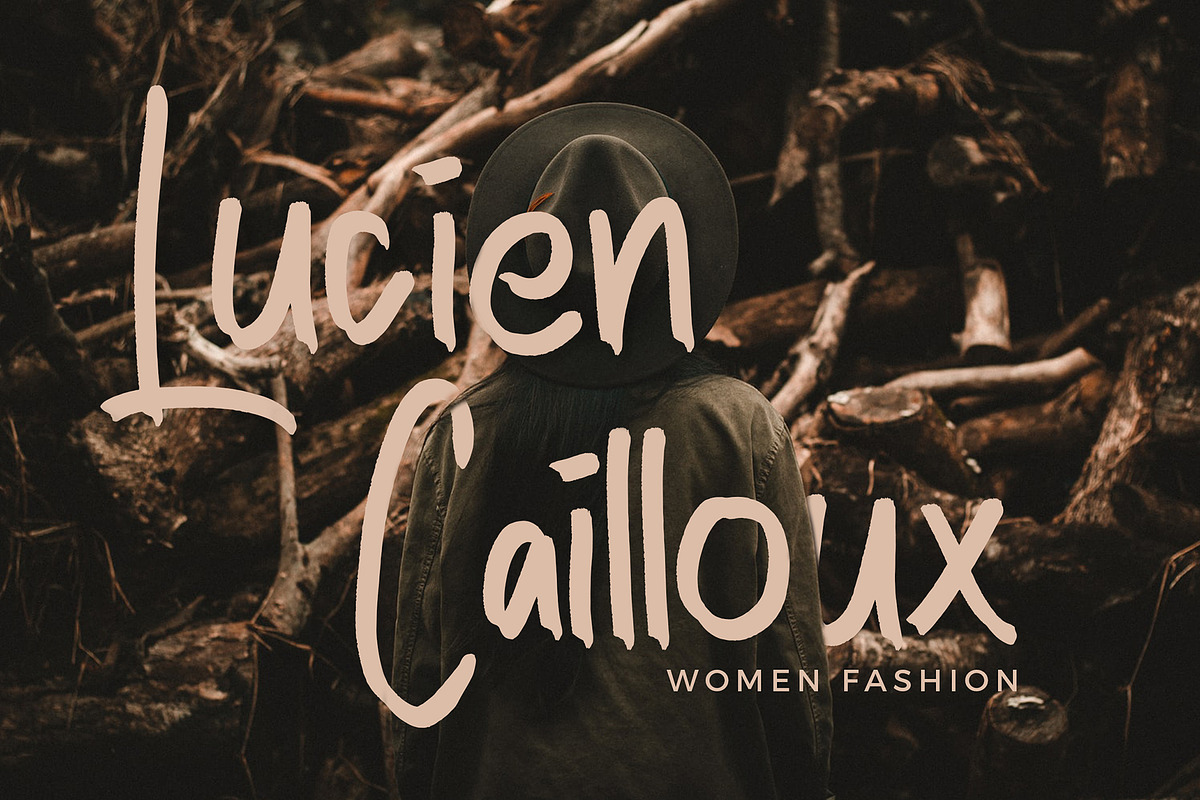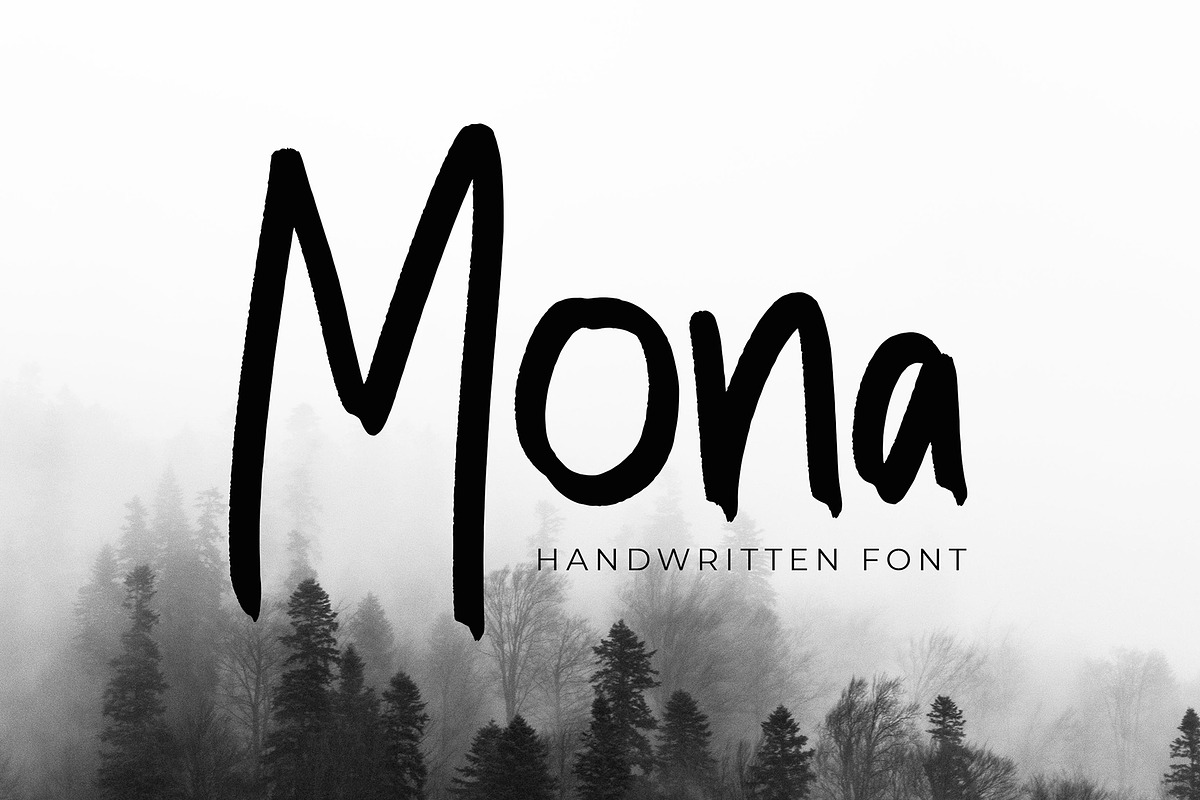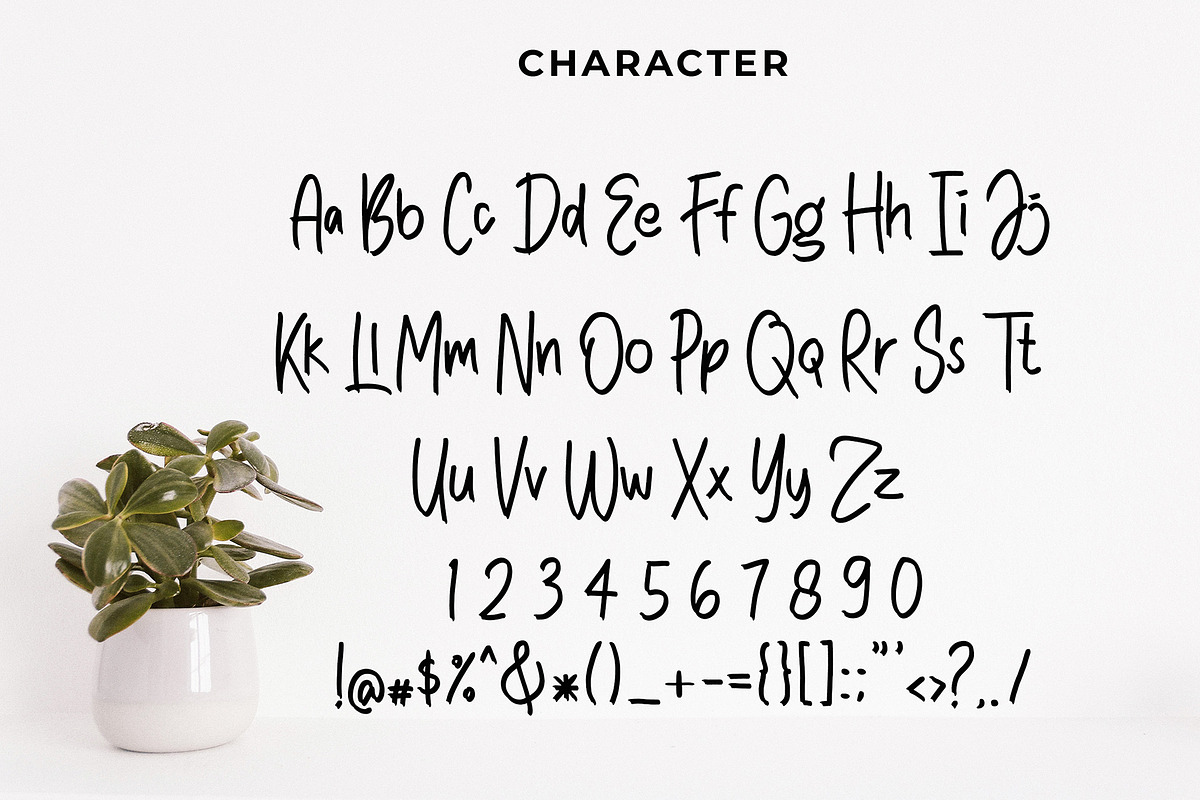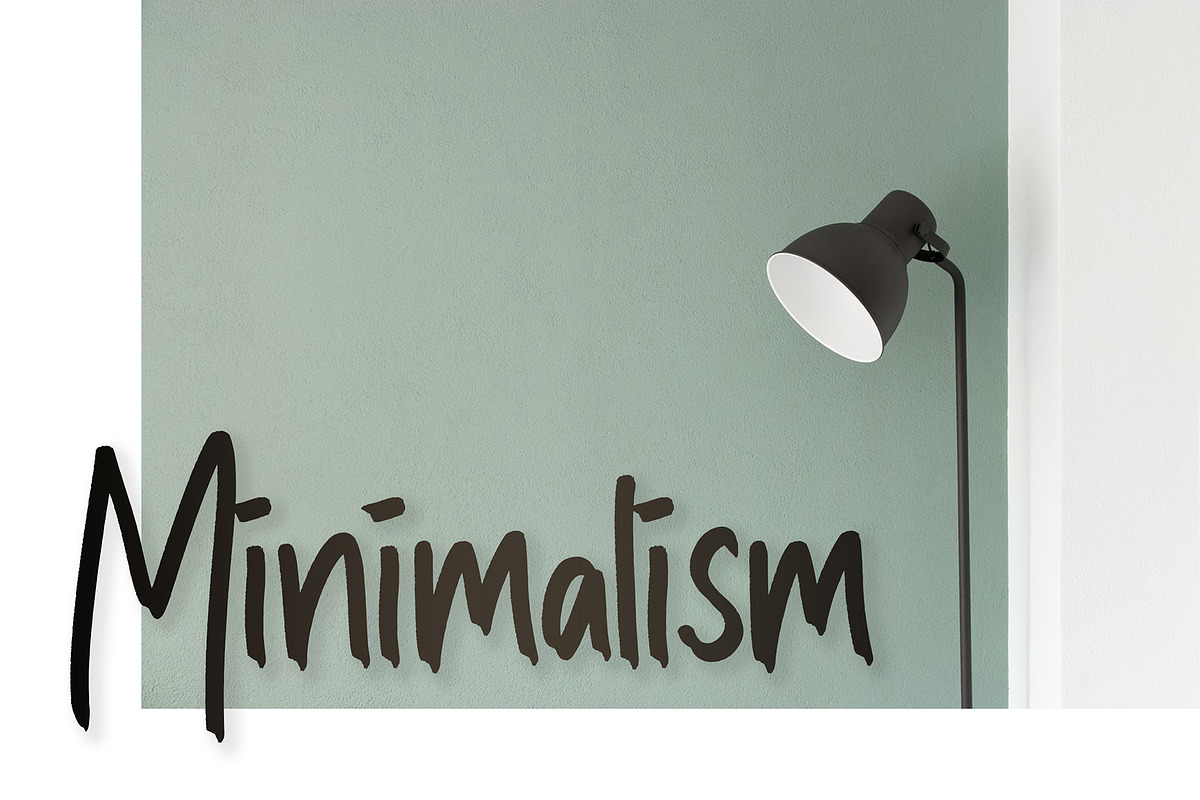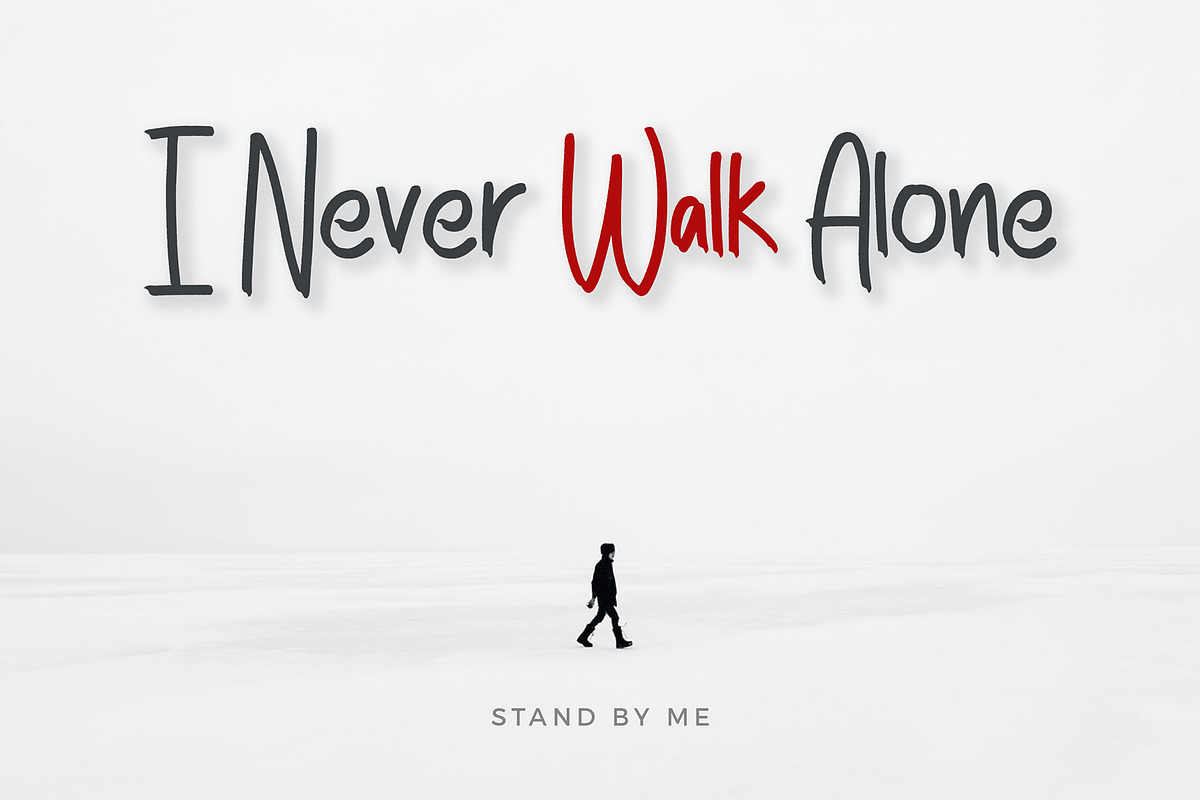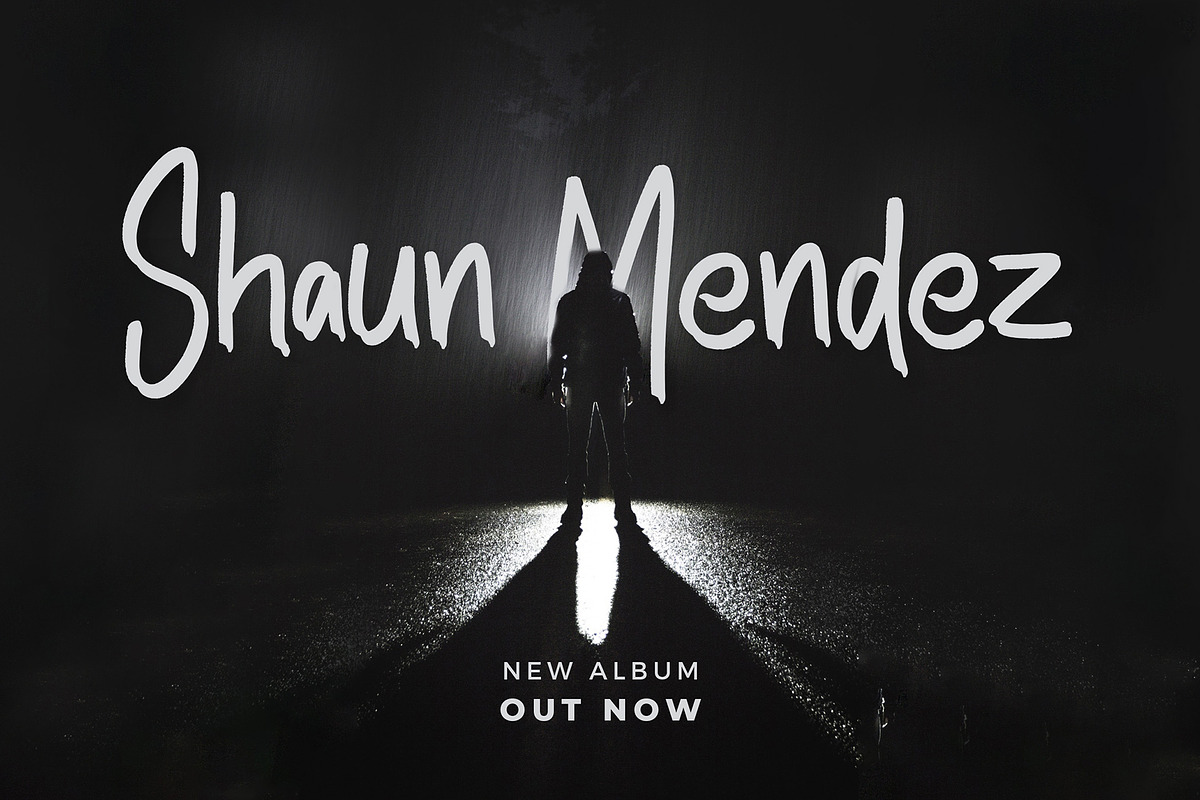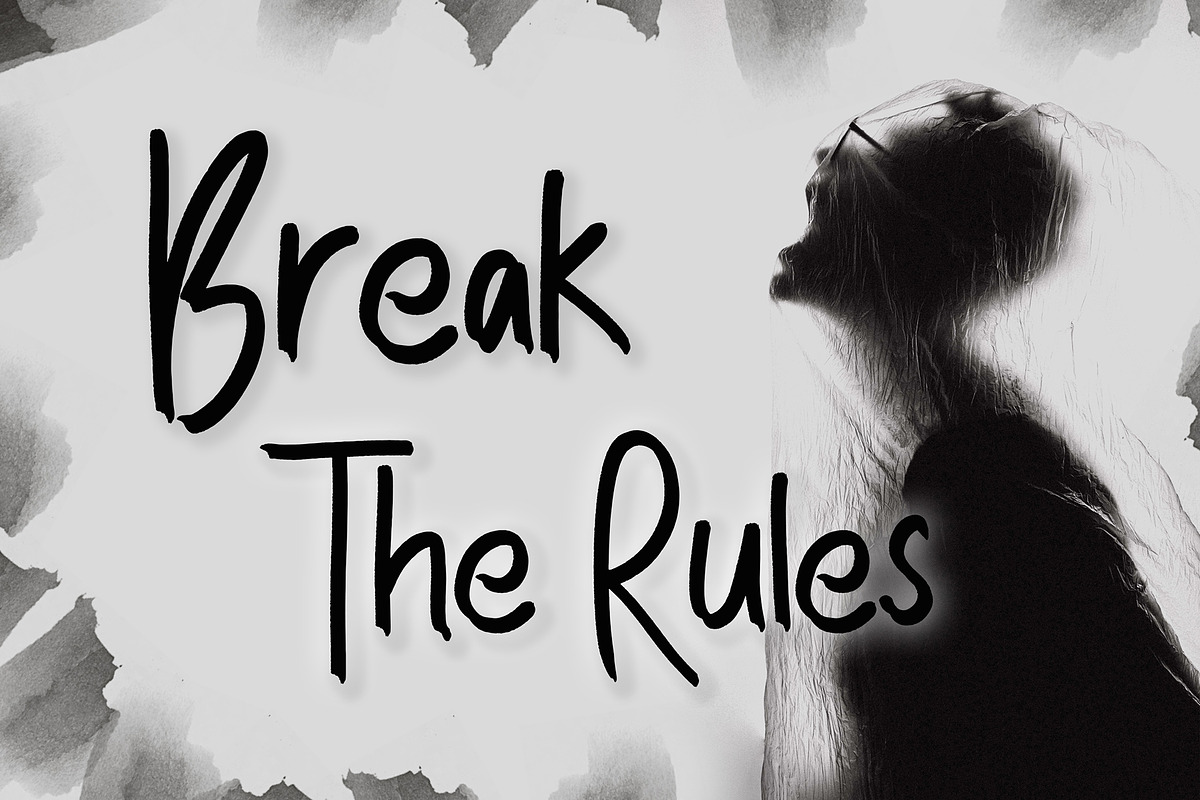
Mona Modern Handwritten Font
Mona is playful modern handwritten font. This font perfect for branding projects, logo, book cover design, tshirt designs, social media posts, advertisements, product packaging, product designs, label, watermark, invitation, stationery and any projects
Why Mona Modern Handwritten Font is worth a look
Mona Modern Handwritten Font by Formatika Studio fits naturally into Branding, posters, packaging, typography.